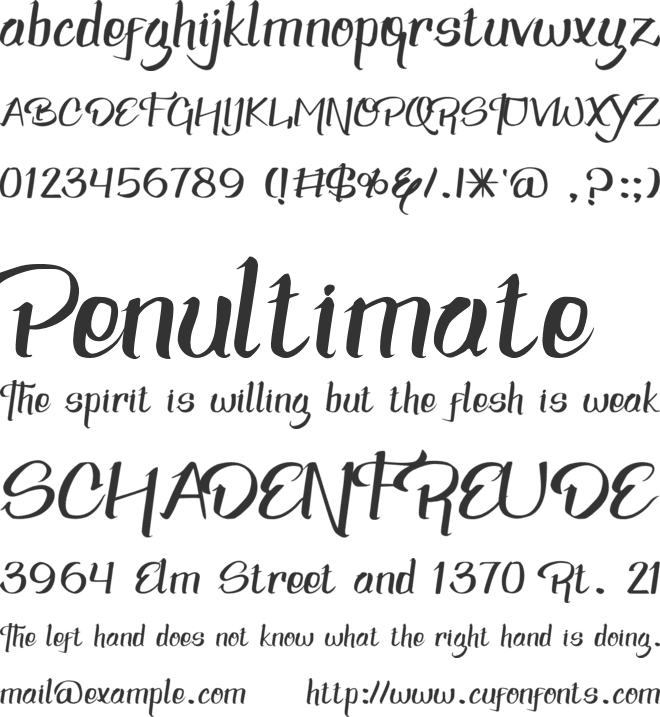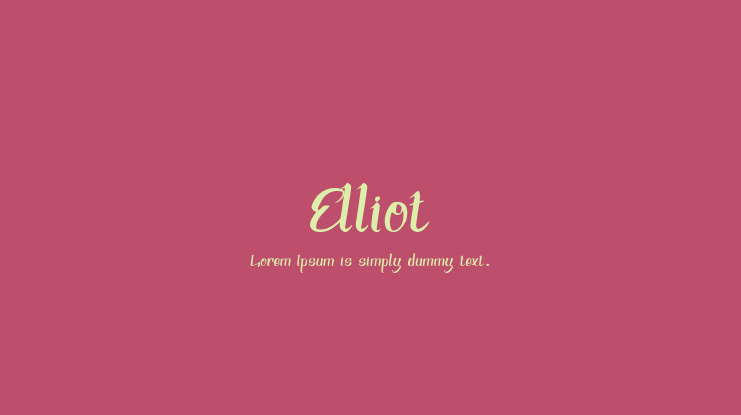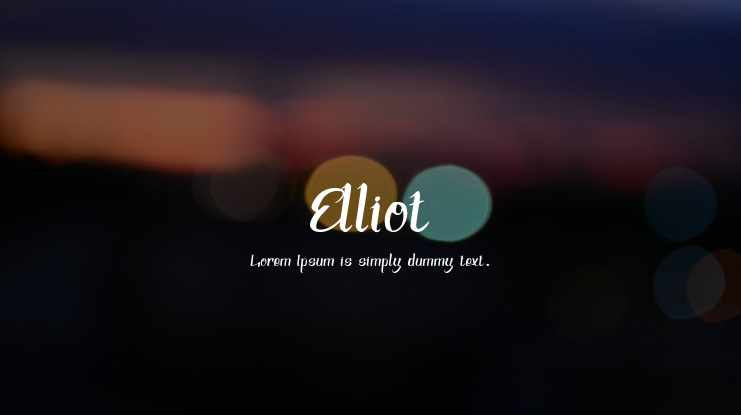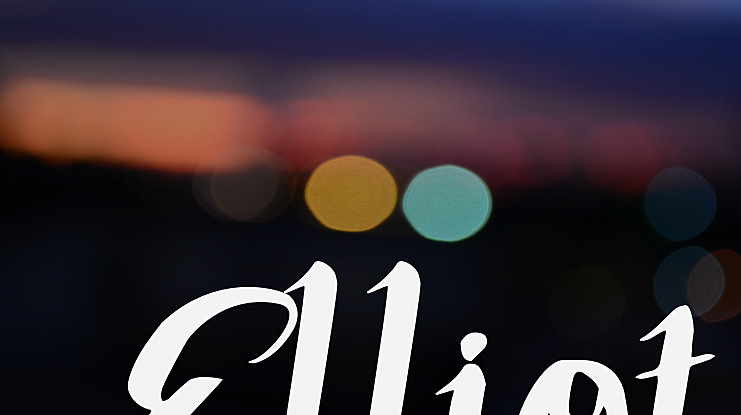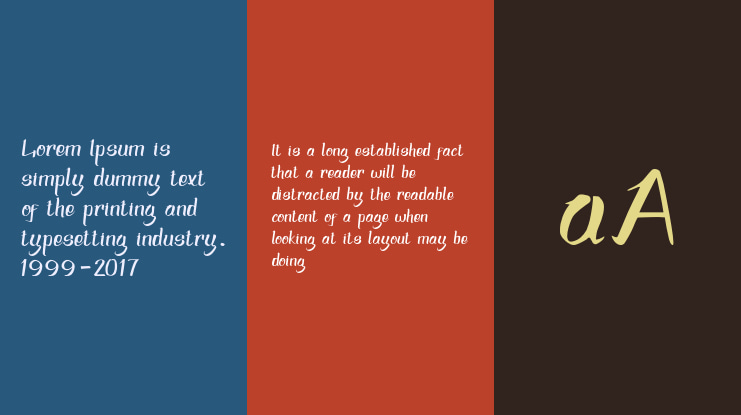
Elliot Font
Elliot Typeface inspired by Renaissance-era and feminine typeface. This typeface is best for wedding invitation, birthday party and other events.Features: Lowercase, Uppercase, Numerals & Punctuations (OpenType Standard), Ligatures, Stylistic Alternates, Final Form, Terminal Form, and Swash.Purchase a commercial license at .